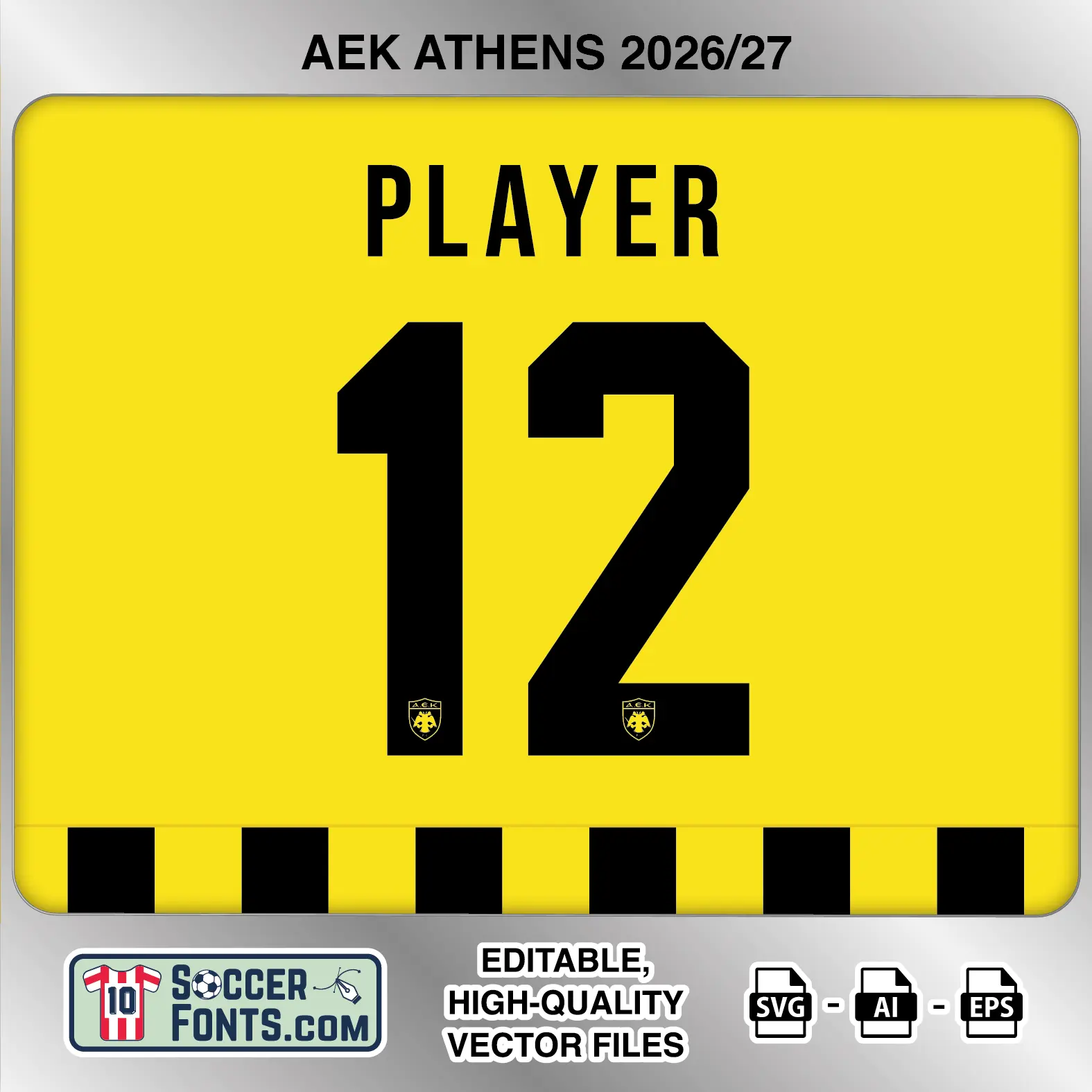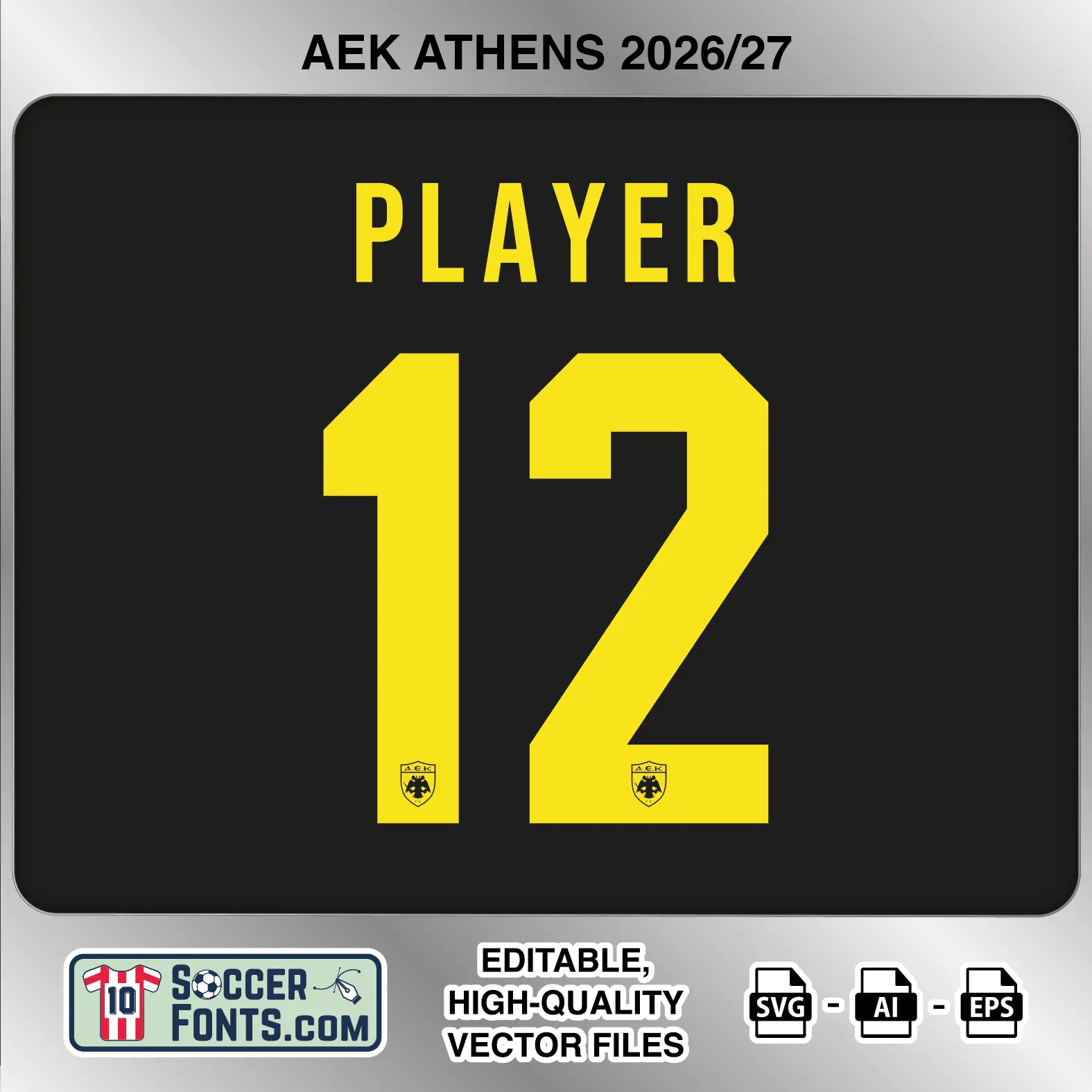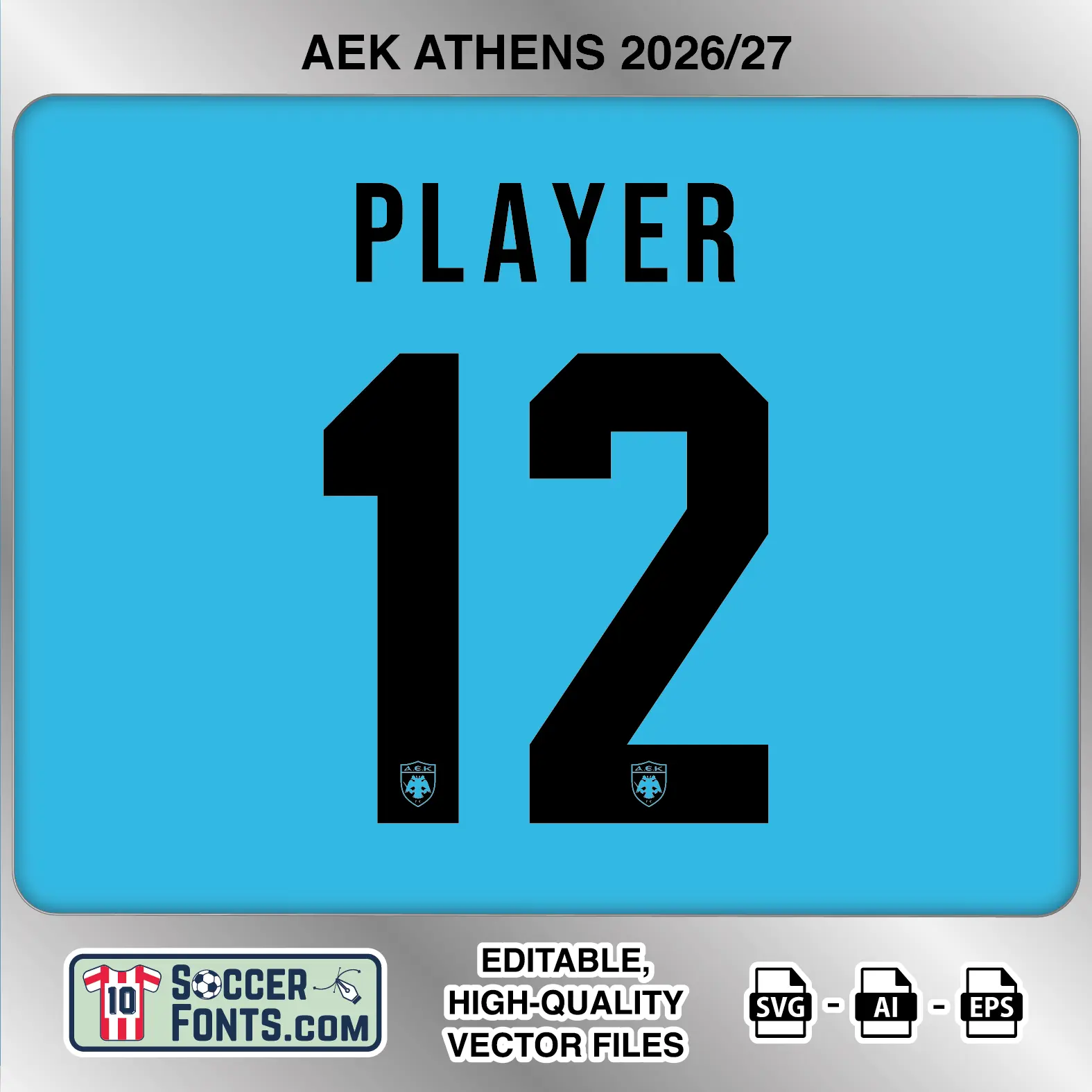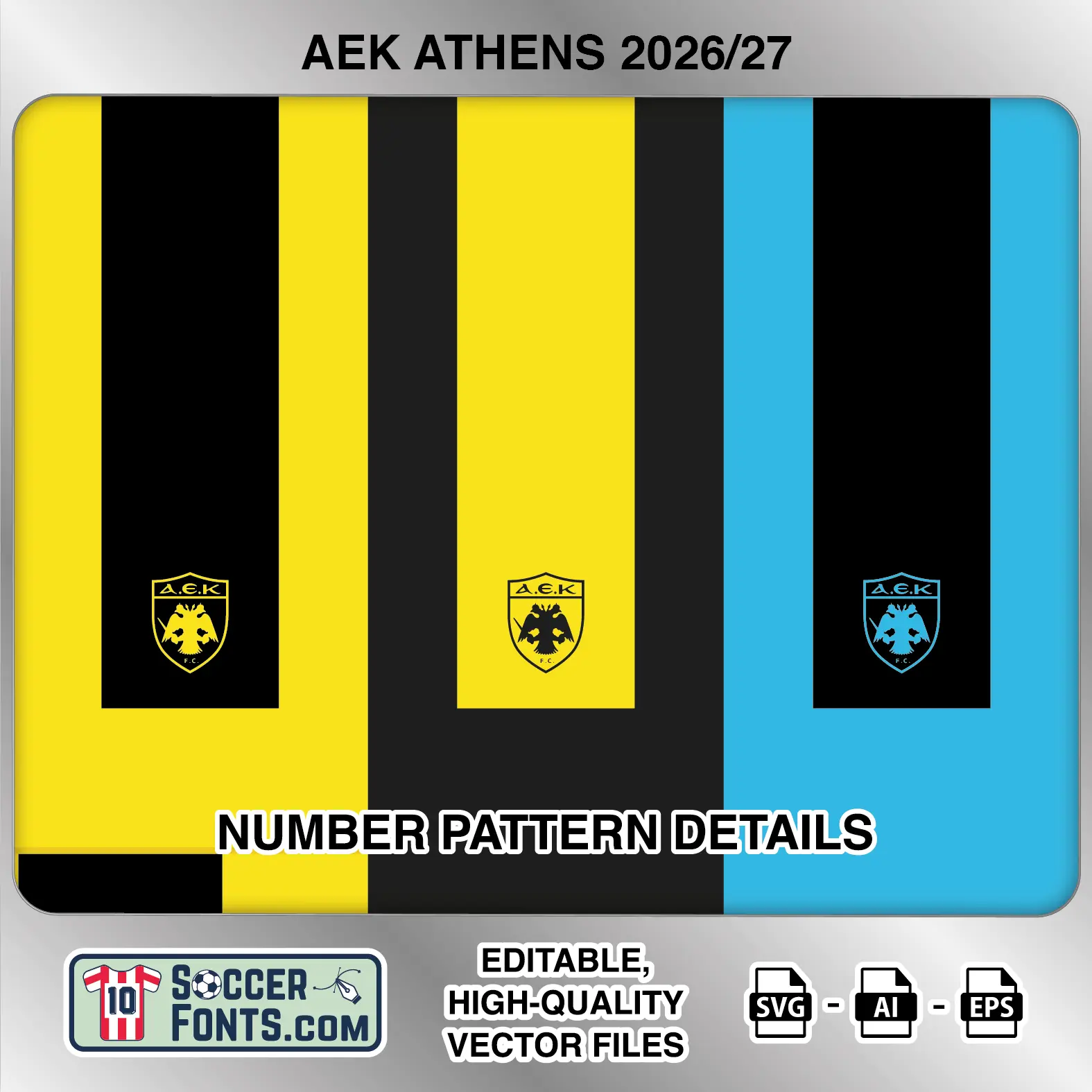
About AEK Athens 2026-27 Font
Download AEK Athens 2026-27 font, an editable soccer jersey lettering design in vector format inspired by the AEK Athens home, away and third kit styles used during the 2026-27 football season. This complete collection includes all three color treatments and is prepared for football shirt recreations, custom jersey projects, football kit mockups and sports graphic design workflows.
Visual Identity of the Font Design :
The AEK Athens 2026-27 lettering uses a tall, condensed uppercase alphabet paired with substantially heavier geometric numbers. The player-name characters are narrow and upright, while the numerals feature broad straight strokes, clipped corners and angular transitions. The 1 has a sharply angled upper section, the 2 combines a squared top with a long diagonal stroke, and figures such as 6, 8, 9 and 0 use compact rectangular internal spaces. Each numeral carries a small AEK crest near its lower edge.
The home treatment uses black lettering and numbers against the yellow shirt presentation. The away version reverses the club colors with yellow lettering and numbers on a dark background, while the third treatment uses black lettering and numbers against a bright light-blue shirt. All three versions share the same character construction and include an extended uppercase set with numerous accented letters for international player names.
Context of 2026-27 Season for AEK Athens :
AEK entered the 2026-27 campaign as defending Greek champions after winning their 14th national league title in 2025-26, the first season under Marko Nikolić. The AEK Athens 2026-27 Font accompanies a campaign that also marks the club’s return to the UEFA Champions League proper for the first time since 2018-19. Luka Jović remains a major attacking figure after scoring 17 league goals in his first season in Greece, while the squad also features players such as Petros Mantalos, Răzvan Marin, Domagoj Vida and summer arrival Oleksandr Zubkov.
European competition gives the AEK Athens 2026-27 Font additional significance, with AEK facing Champions League opponents including Shakhtar Donetsk, Manchester City, Real Madrid, Como, Galatasaray, Roma and Borussia Dortmund during the league phase. The combination of a domestic title defence and Champions League football makes the AEK Athens 2026-27 Font part of an important modern season for the Athens club.
AEK Athens 2026-27 football shirt font showing alphabet letters and jersey numbers
AEK Athens 2026-27 Font